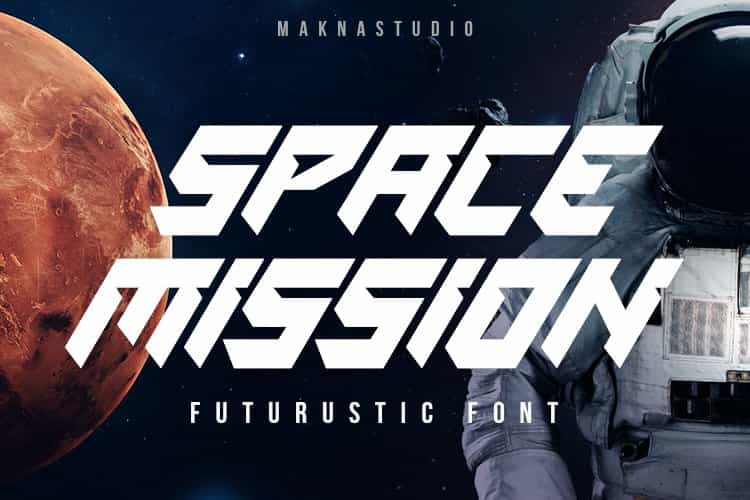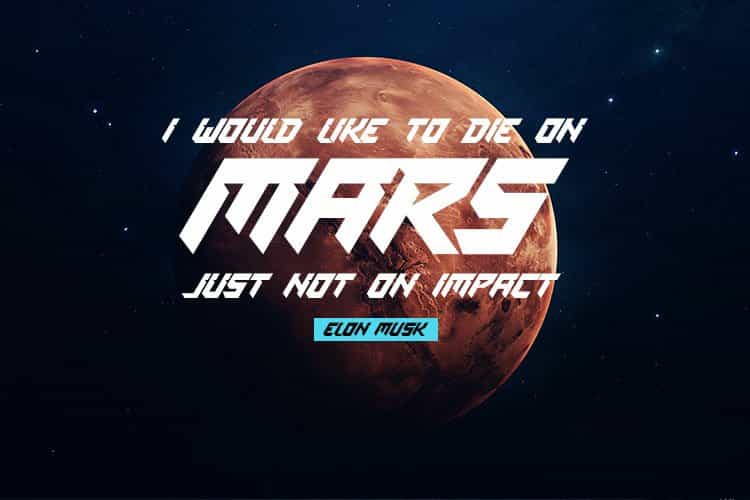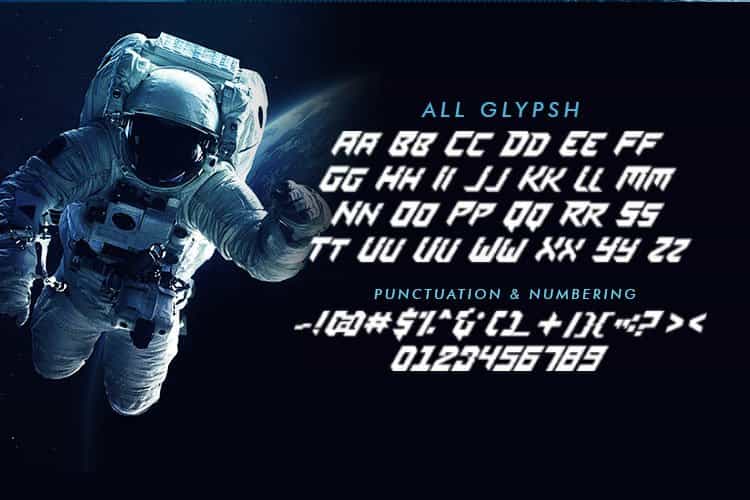
Space Mission font is an ideal font choice for projects featuring gaming or space imagery, and can also be used in logo title design projects with futuristic or cosmic themes.